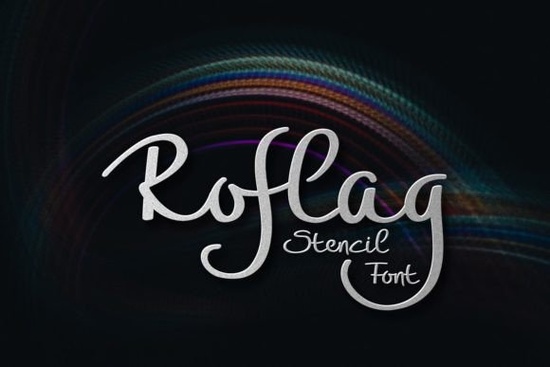
If you work with vinyl cutters, laser engravers, or even hand-cut stencils, you know how important it is to choose a font that actually cuts cleanly. That’s where Roflag Stencil Font comes in it’s built specifically for crafting tools that need open paths and no closed loops. Unlike many decorative fonts that look great on screen but fall apart when sent to a cutting machine, Roflag Stencil stays intact, making it a reliable go-to for signs, T-shirts, wall art, and more.
What sets this font apart isn’t just its clean structure it also includes multiple alternates and ligatures. This means you can type the same word twice and get two different looks without switching fonts. For small businesses or print-on-demand sellers, that flexibility saves time and adds visual variety without extra design work.
Why stencil fonts matter for crafters and makers
Stencil fonts aren’t just a stylistic choice they solve real-world production problems. When you’re working with materials like wood, metal, or thick cardstock, fully enclosed letterforms (like in a standard sans-serif) can leave floating centers that break off during cutting or painting. Roflag Stencil avoids that by design: every character has intentional breaks, so your final product holds together physically and visually.
This makes it especially useful for:
- Vinyl cutting with Cricut or Silhouette machines
- Laser engraving on acrylic or wood
- Hand-painted signs using physical stencils
- Industrial labeling or workshop signage
How to make the most of Roflag Stencil’s alternates
Many users overlook OpenType features, but with Roflag Stencil, they’re worth exploring. In programs like Illustrator or Affinity Designer, you can access stylistic alternates through the Glyphs panel. Try swapping out default letters for their alternate versions to give your text more personality perfect for branding a boutique shop or creating unique packaging labels.
Ligatures also help with readability in uppercase-heavy designs. For example, certain letter pairs automatically adjust spacing or connection points, so your words don’t look cramped or disjointed. It’s these subtle touches that separate professional-looking results from amateur ones.
Also, test your design at actual size before cutting or printing. What looks crisp at 72pt might reveal gaps or weak bridges at 2 inches tall. Adjust stroke weight or spacing slightly if needed, but remember: the beauty of Roflag Stencil is that it usually works well right out of the box.
Quick checklist before your next stencil project:
- Confirm your software supports OpenType features (for alternates/ligatures)
- Preview your text at real-world size
- Check material thickness thinner materials may need wider bridges
- Pair with a complementary script font for layered designs
- Save your final vector file with outlines converted (to avoid font issues later)
Whether you’re making custom mugs, storefront signs, or DIY home decor, Roflag Stencil gives you a dependable foundation that cuts cleanly and looks intentional. And with a few alternates, it doesn’t have to feel repetitive just consistent, professional, and ready to work.